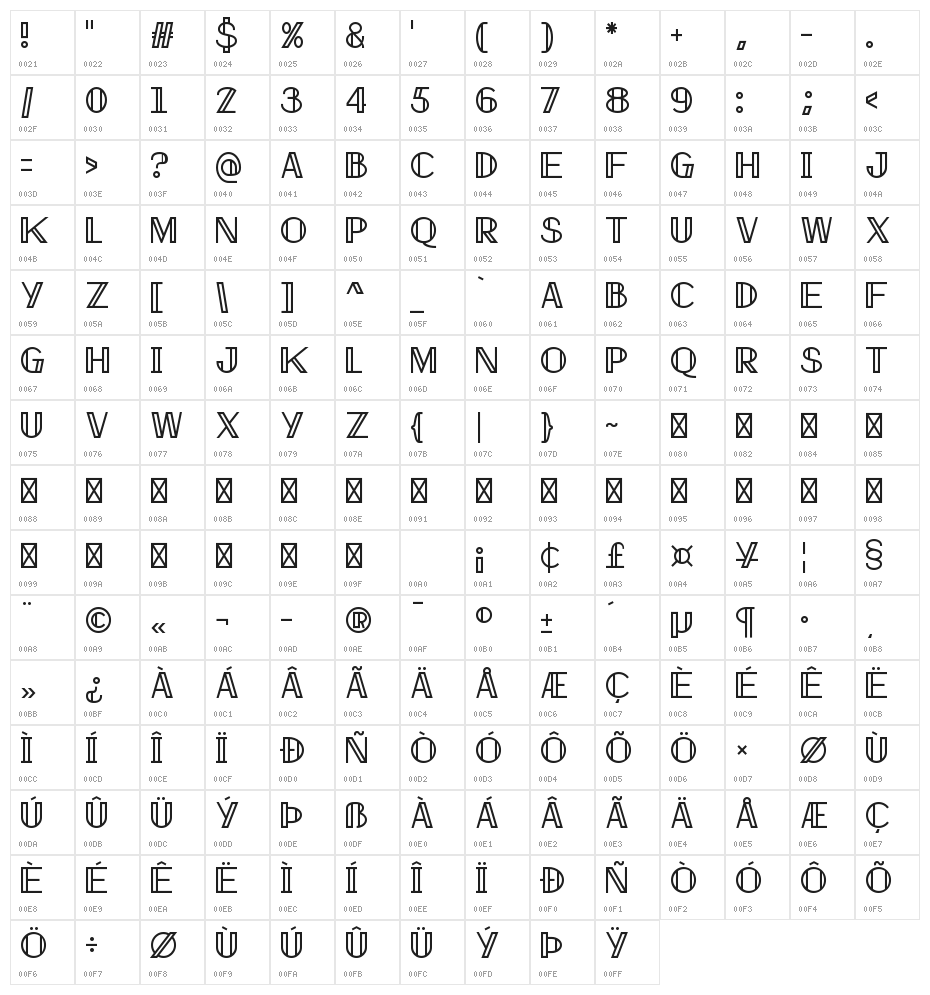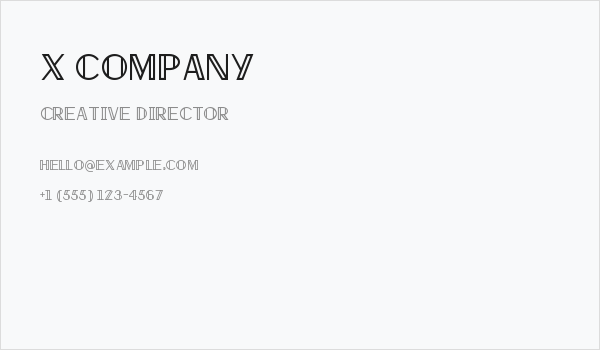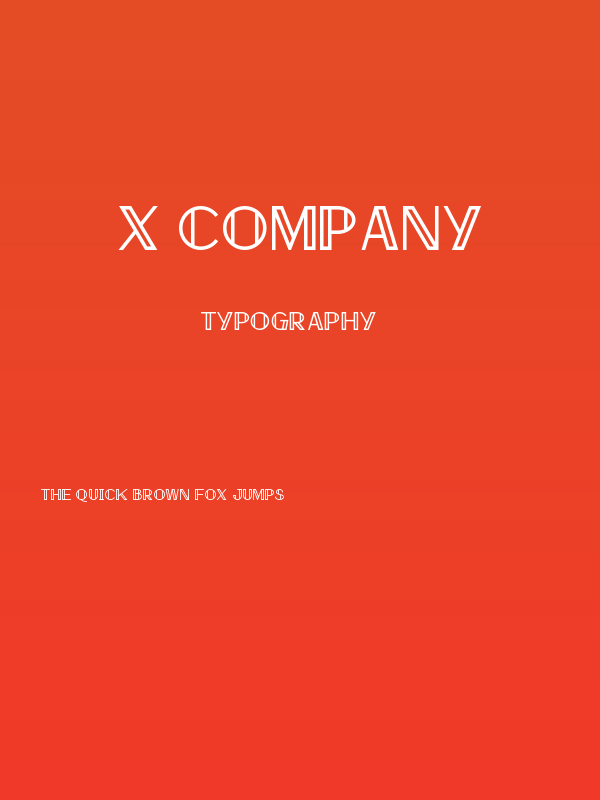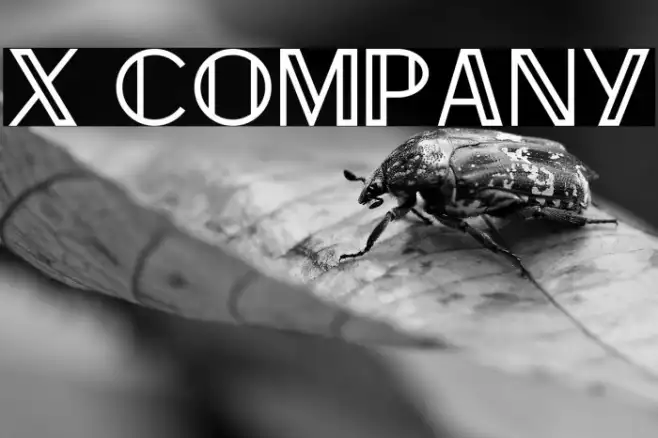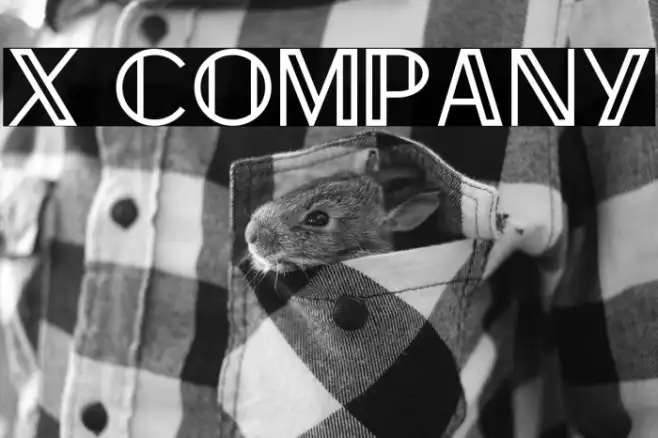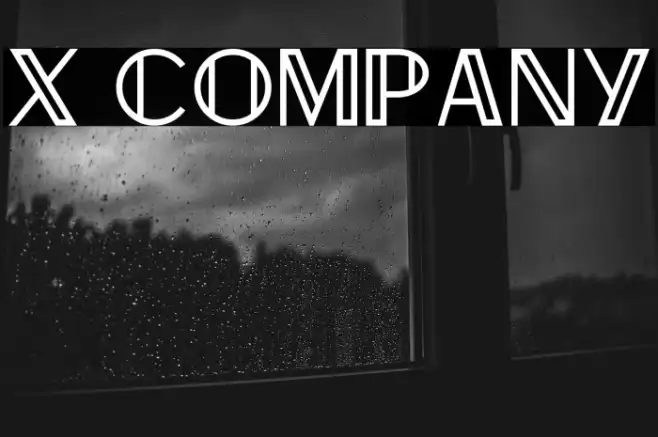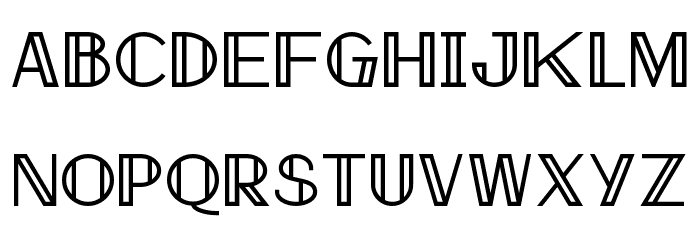
X Company Font
X Company Description
This font features a bold and geometric design, characterized by its clean lines and angular shapes. The uppercase letters are distinct with sharp edges and a modern aesthetic, while the lowercase letters maintain a consistent style that complements the uppercase. The numerals are equally bold, with a uniform thickness that ensures readability. Special characters are designed to match the overall geometric theme, making them suitable for various design contexts. The font's structure is both contemporary and versatile, making it ideal for projects that require a strong visual impact.